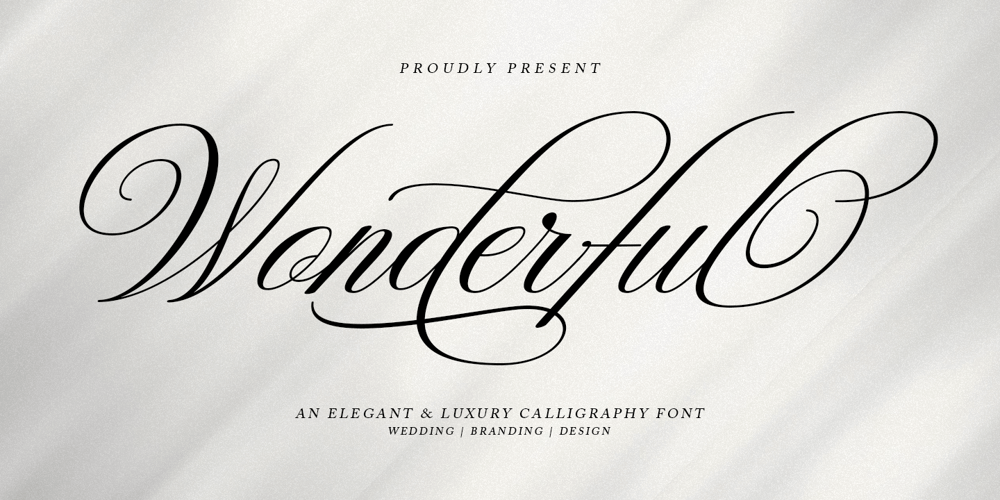
Wonderful Script Font Family was designed by Has Rizal and published by Hrz Studio. Wonderful Script contains 1 styles and family package options. Wonderful is a elegance modern calligraphy script based on manual hand writing. The natural flow with the swashes make this font looks even more prettier. This type of font perfectly made to be applied especially in wedding invitation, labels, logos, magazines, books, greeting / wedding cards, packaging, fashion, make up, stationery, novels, labels or any type of advertising purpose.Features : Uppercase & lowercase Numbers and punctuation Alternates & Ligatures Multilingual PUA encoded We highly recommend using a program that supports OpenType features and Glyphs panels like many of Adobe apps and Corel Draw, so you can see and access all Glyph variations.